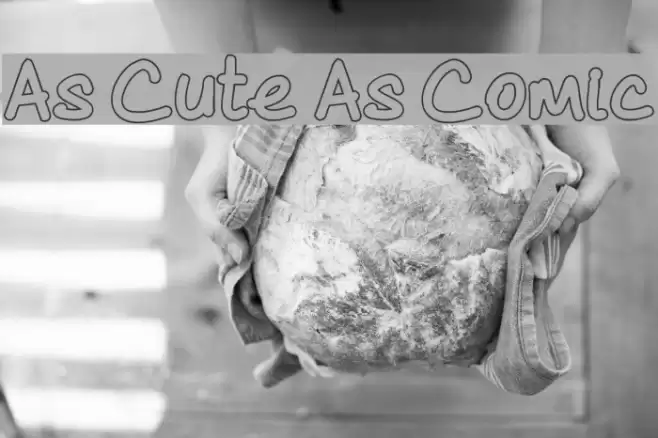
As Cute As Comic Font
As Cute As Comic Description
This playful and energetic font features bold, rounded characters with a comic-style outline. The uppercase and lowercase letters are designed with a whimsical flair, giving each character a lively and animated appearance. The font includes a variety of special characters, maintaining the same dynamic style. Its thick strokes and exaggerated curves make it highly legible and visually engaging, perfect for capturing attention. The font's design is reminiscent of classic comic book lettering, adding a touch of nostalgia and fun to any project.
A playful, comic-style font with bold, rounded characters and dynamic outlines from Uncategorized fonts.
- Proposed Projects: Ideal for comic books, children's books, playful branding, posters, and any project requiring a fun and engaging typeface.
- Overall Style: Playful, Comic